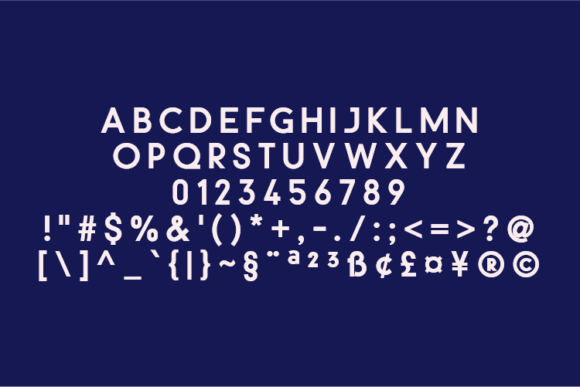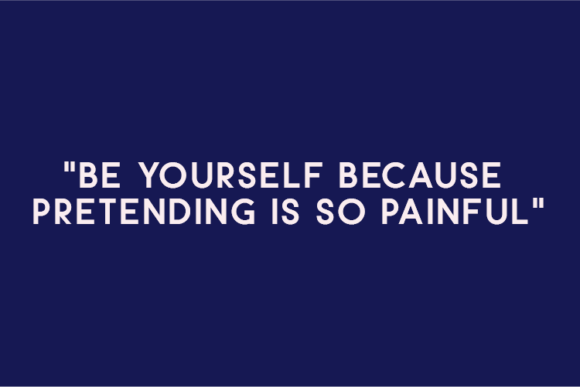
Introduction to Pinklyez Font
Have you ever found yourself staring at a blank canvas, trying to bring a creative project to life, only to be stopped in your tracks by the perfect font? For many designers, this is a familiar struggle. But what if you could unlock a versatile and high-quality design resource that elevates your work and saves you time? Enter the Pinklyez Font, a sleek and modern sans serif font that’s sure to become your new go-to.
With its smooth lines and just the right amount of contrast, the Pinklyez Font is a game-changer for designers of all levels. Whether you’re working on a logo, branding project, or web heading, this font is sure to impress. Plus, with a transparent background, you can easily customize it to fit your unique design vision.
Key Features of Pinklyez Font
- High-quality design resource ideal for creative projects, offering a unique and playful touch.
- Unique characteristics include its pastel pink hue and rounded edges, making it perfect for feminine or whimsical designs.
Honest Review: Pinklyez Font
As a designer, I’m always on the lookout for high-quality design resources that can elevate my creative projects. Recently, I stumbled upon the Pinklyez Font, and I’m excited to share my thoughts with you.
- Unique and playful design: The Pinklyez Font has a quirky and fun feel that’s perfect for projects that need a bit of personality.
- Limited character set: The font doesn’t include a comprehensive character set, which may limit its use in certain projects.
Overall, I’m impressed with the Pinklyez Font’s unique design and high-quality vector files. While it may have some limitations, it’s a great resource for designers looking for a fun and playful font to add some personality to their creative projects.
Tips for Getting the Most Out of Pinklyez Font
For the best results, use the Pinklyez Font with a transparent background to create a clean and modern design. You can also experiment with different font sizes and styles to add visual interest to your project.
Common Use Cases for Pinklyez Font
The Pinklyez Font is ideal for a variety of creative projects, including logos, business cards, and social media graphics. Its high-quality design and transparent background make it a popular choice for designers and non-designers alike.